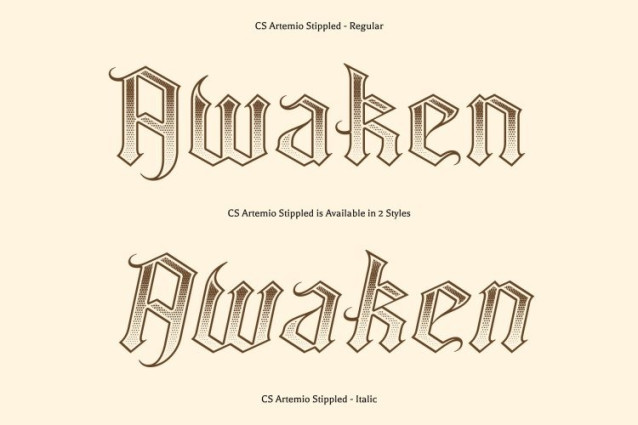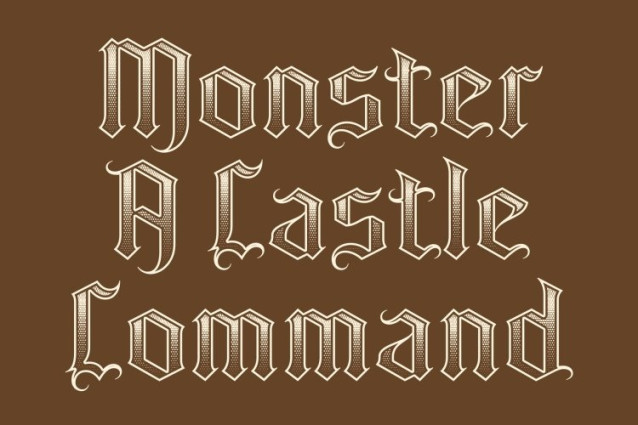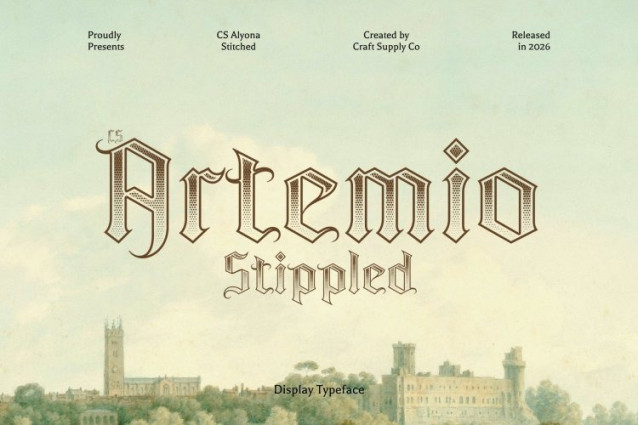
CS Artemio Stippled Font
CS Artemio Stippled Font This is a Gothic Blackletter display serif that captures the gravitas and elegance of medieval typography, now enriched with a dense stippled texture. Inspired by traditional ink-dot and stippling illustration techniques, the dotwork detailing adds depth, dimension, and a handcrafted vintage character to its intricate forms. The result is a font that feels historic, majestic, and visually commanding.
Intricate Letterforms with Textured Charm
Each letter exhibits ornate curves, bold strokes, and decorative flourishes enhanced by the stippled surface. The dotwork adds a subtle, engraved-like quality, highlighting the historical sophistication of the design while maintaining legibility. This creates a font that conveys both tradition and artistry with a strong visual presence.
Balancing Tradition and Sophistication
This font blends Gothic heritage with refined craftsmanship. Its medieval-inspired forms evoke prestige, authority, and timeless elegance, while the textured detailing introduces warmth and handcrafted appeal. The font is perfect for projects that require a balance of historical gravitas and artistic expression.
Ideal for Themed, Luxury, and Formal Designs
Whether designing medieval-inspired events, luxury branding, formal invitations, or editorial layouts, ensures a memorable impact. Its combination of intricate Blackletter structure and stippled artistry creates a visually rich, authoritative, and historically resonant typographic solution.